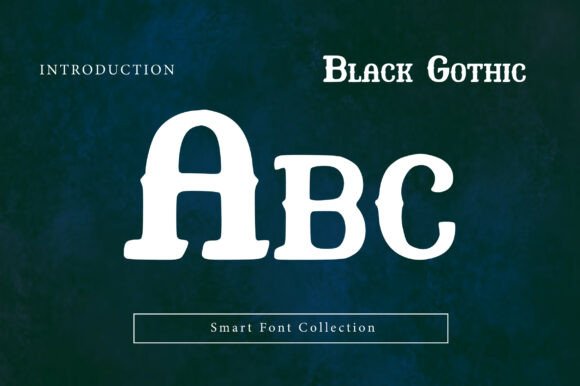
Unleashing the Power of Black Gothic Font: A Timeless Choice for Designers
Are you looking for a font that exudes confidence, sophistication, and a touch of vintage charm? Look no further than the Black Gothic font. This bold, vintage display serif is a masterclass in typographic design, boasting strong Gothic influences and heavy, confident letterforms that demand attention. In this article, we’ll dive into the world of Black Gothic, exploring its unique characteristics, uses, and benefits for designers and crafters.
The Essence of Black Gothic
Black Gothic is a bold, eye-catching font that embodies the perfect blend of traditional strength and modern sophistication. Its tall capitals, rounded corners, and classic old-style character evoke a powerful retro mood that’s both nostalgic and highly readable. This font is the ultimate choice for designers seeking to create high-impact cinematic posters, luxury branding, and provocative magazine headlines that leave a lasting impression.
So, what makes Black Gothic so unique? Here are a few key design characteristics that set it apart:
- Strong Gothic Influence: Black Gothic’s Gothic roots are evident in its bold, confident letterforms and classic old-style character.
- Tall Capitals: The font’s tall capitals add to its sense of grandeur and sophistication, making it perfect for headlines and titles.
- Rounded Corners: The rounded corners of Black Gothic’s letterforms soften its overall appearance, adding a touch of elegance and refinement.
- Sophisticated Weight: The font’s weight is carefully balanced to ensure maximum legibility while retaining its powerful, historic character.
Uses and Applications
Black Gothic is an incredibly versatile font, suitable for a wide range of design applications. Here are a few ideas to get you started:
- Cinematic Posters: Create eye-catching movie posters that demand attention with Black Gothic’s bold, confident letterforms.
- Luxury Branding: Use Black Gothic to create sophisticated, high-end branding that exudes luxury and refinement.
- Magazine Headlines: Add a touch of drama and sophistication to your magazine headlines with Black Gothic’s powerful, attention-grabbing letterforms.
- Logo Design: Create a lasting impression with Black Gothic’s bold, confident letterforms, perfect for logos that require a sense of authority and urban sophistication.
Pairing Black Gothic with Other Design Elements
To get the most out of Black Gothic, it’s essential to pair it with other design elements that complement its unique aesthetic. Here are a few tips:
- Deep Color Palettes: Pair Black Gothic with deep, rich colors to create a sense of luxury and sophistication.
- Minimalist Photography: Combine Black Gothic with minimalist photography to create a sense of “quiet luxury” that’s both refined and elegant.
In conclusion, Black Gothic is a powerful, sophisticated font that’s perfect for designers and crafters seeking to create high-impact designs that exude confidence, authority, and urban sophistication. With its strong Gothic influence, tall capitals, rounded corners, and classic old-style character, Black Gothic is the ultimate choice for cinematic posters, luxury branding, magazine headlines, and logo design. Whether you’re a seasoned designer or just starting out, Black Gothic is an excellent addition to your typographic arsenal.
Getting Started with Black Gothic
Ready to unleash the power of Black Gothic? Here are a few final tips to get you started:
- Experiment with Different Sizes: Black Gothic is a bold font, but it’s also highly legible. Experiment with different sizes to find the perfect balance for your design.
- Play with Color: Black Gothic looks stunning in a range of colors. Don’t be afraid to experiment and find the perfect hue to match your brand or design aesthetic.
- Combine with Other Fonts: Black Gothic is a versatile font that pairs well with a range of other typefaces. Experiment with different combinations to find the perfect match for your design.